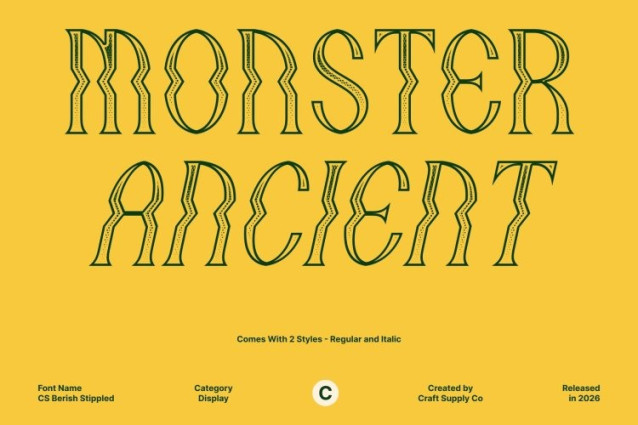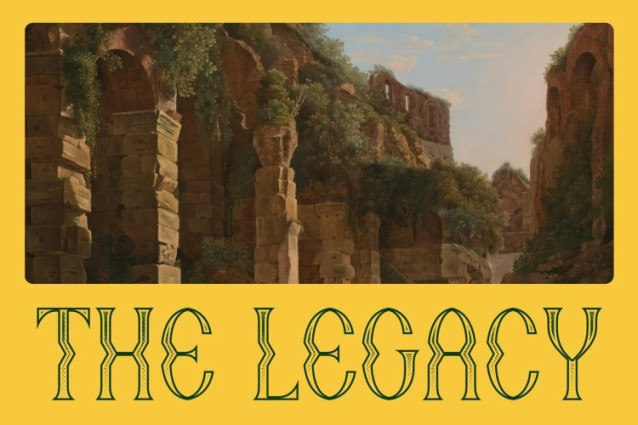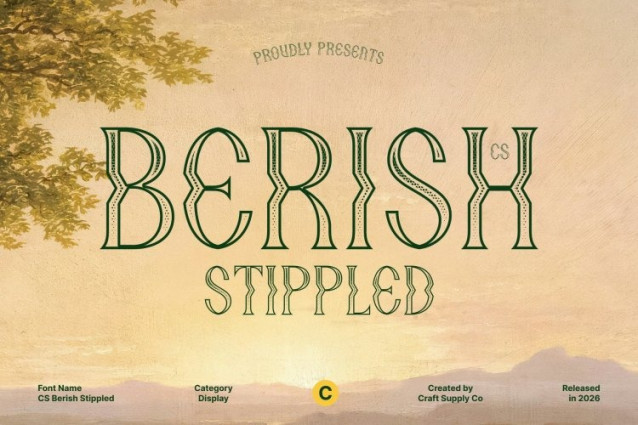
CS Berish Stippled Font
CS Berish Stippled Font – This is a display serif font that fuses timeless serif sophistication with bold, contemporary psychedelic forms now elevated with a dense stippled texture. The intricate dotwork detailing enhances its swirling, undulating shapes, adding depth and a handcrafted artistic dimension to its already dynamic structure.
Swirling Forms with Stippled Dimension
The curved and fluid letterforms create hypnotic movement, while the stippled surface introduces subtle shading and tactile richness. This combination intensifies the font’s visual rhythm, making each character feel vibrant, layered, and expressive. The classic serif foundations ground the design, ensuring it remains refined despite its experimental spirit.
Avant-Garde Energy with Sophisticated Balance
This font strikes a compelling balance between tradition and innovation. The psychedelic influences bring bold personality and modern flair, while the serif structure and textured detailing maintain elegance and readability perfect for designs that aim to feel artistic yet polished.
Perfect for Creative, Poster, and Statement Branding
Ideal for music posters, festival visuals, event materials, experimental branding, and contemporary editorial layouts, ensures a memorable impact. Its blend of classic serif form, psychedelic motion, and stippled artistry creates a standout typographic presence that feels energetic, distinctive, and visually captivating.